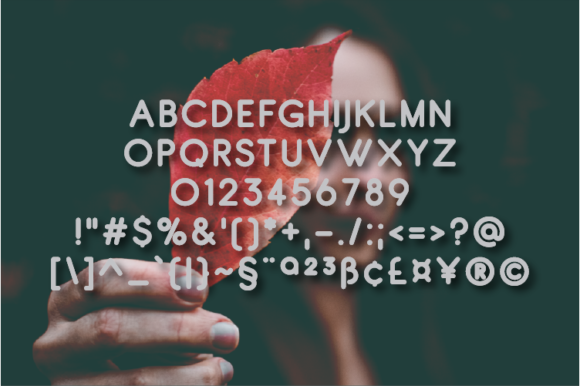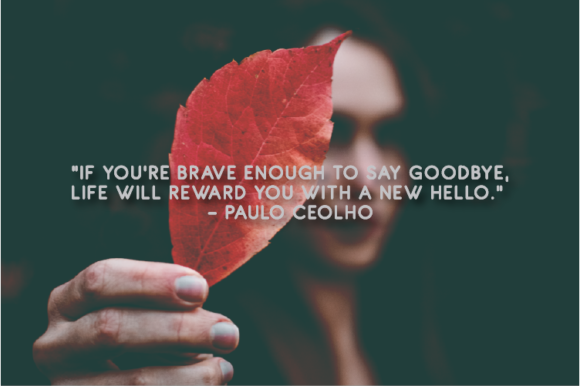
Introduction to Reluna Font
Reluna is a stunning sans serif, ideal to complement every project you’re working on.
Use it to create beautiful headings, gorgeous invitations, stunning logos, and so much more .
Why Choose Reluna Font?
Reluna Font offers exceptional quality and versatility, making it a valuable addition to your design toolkit. Whether you’re creating for personal projects or commercial use, Reluna Font delivers professional results.